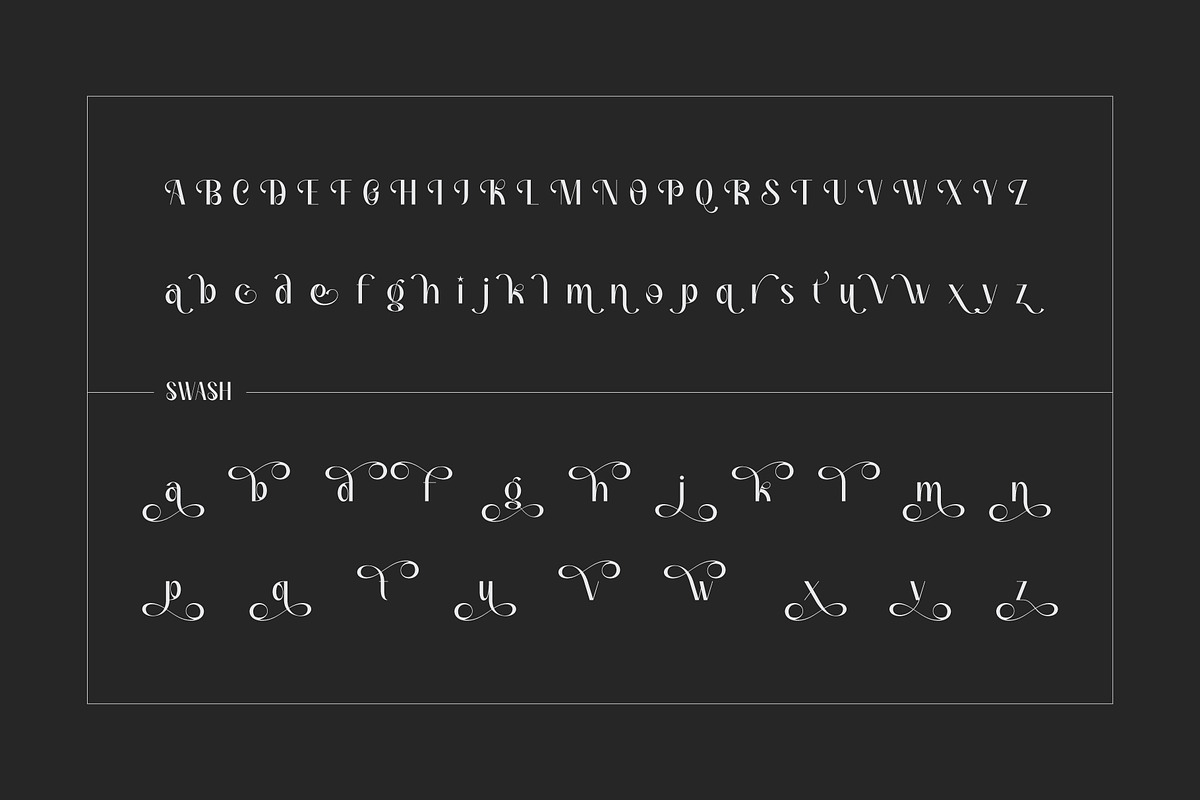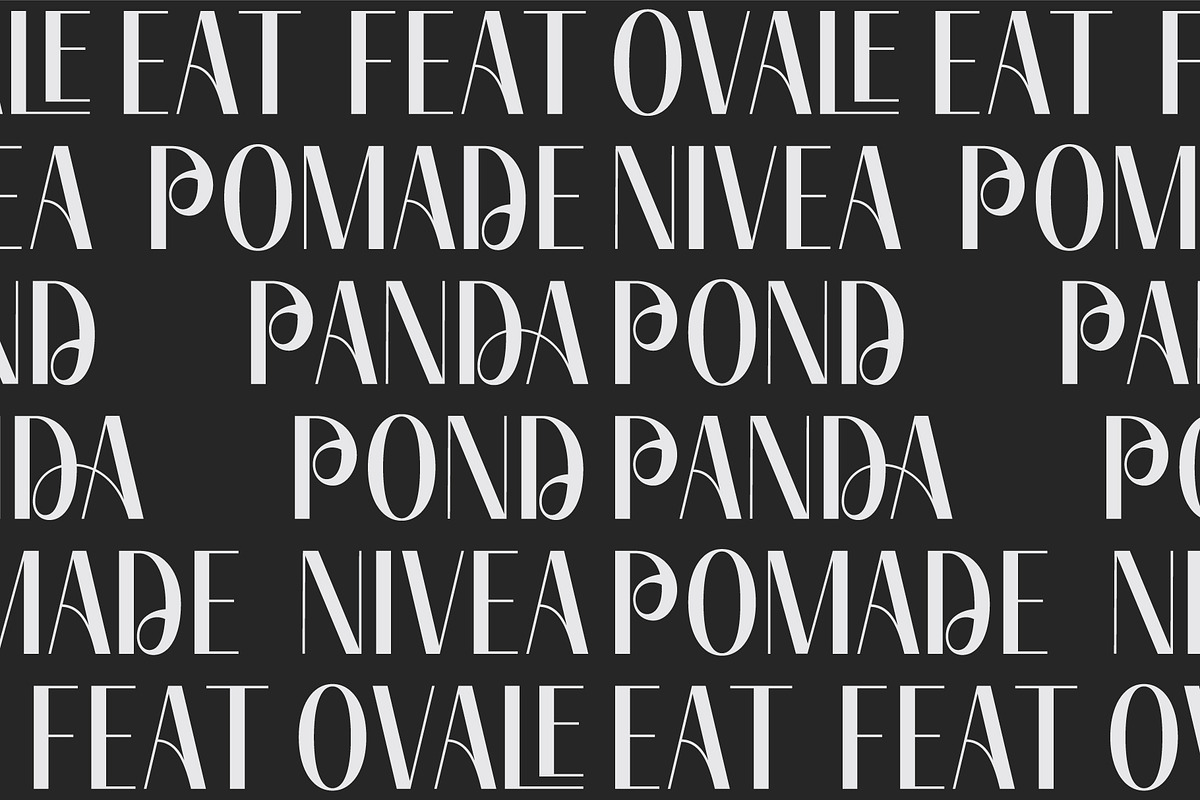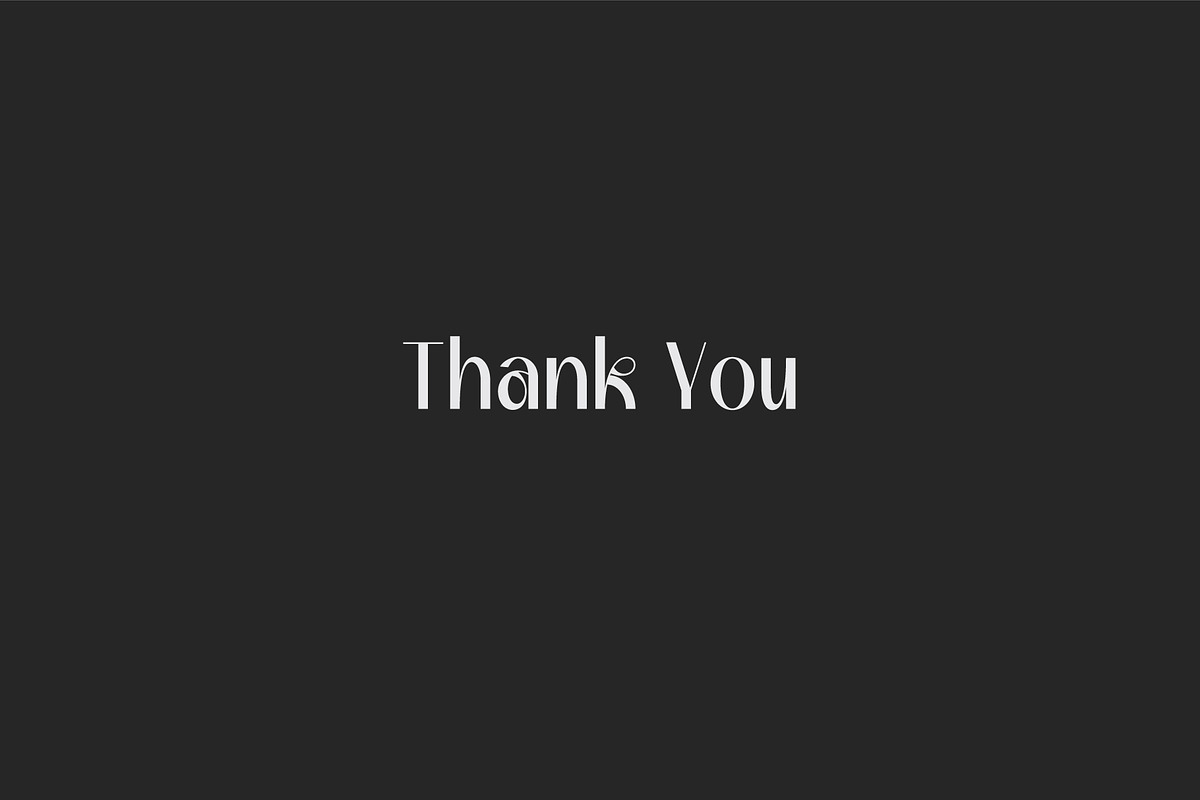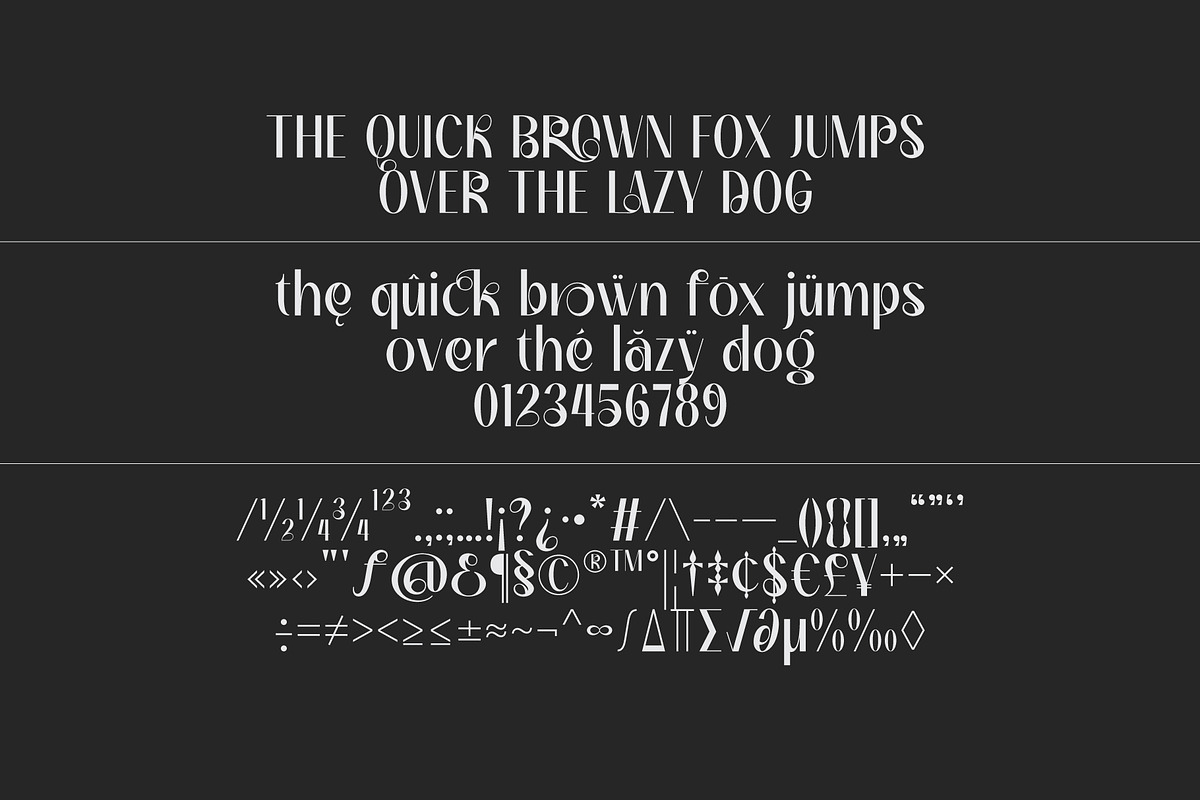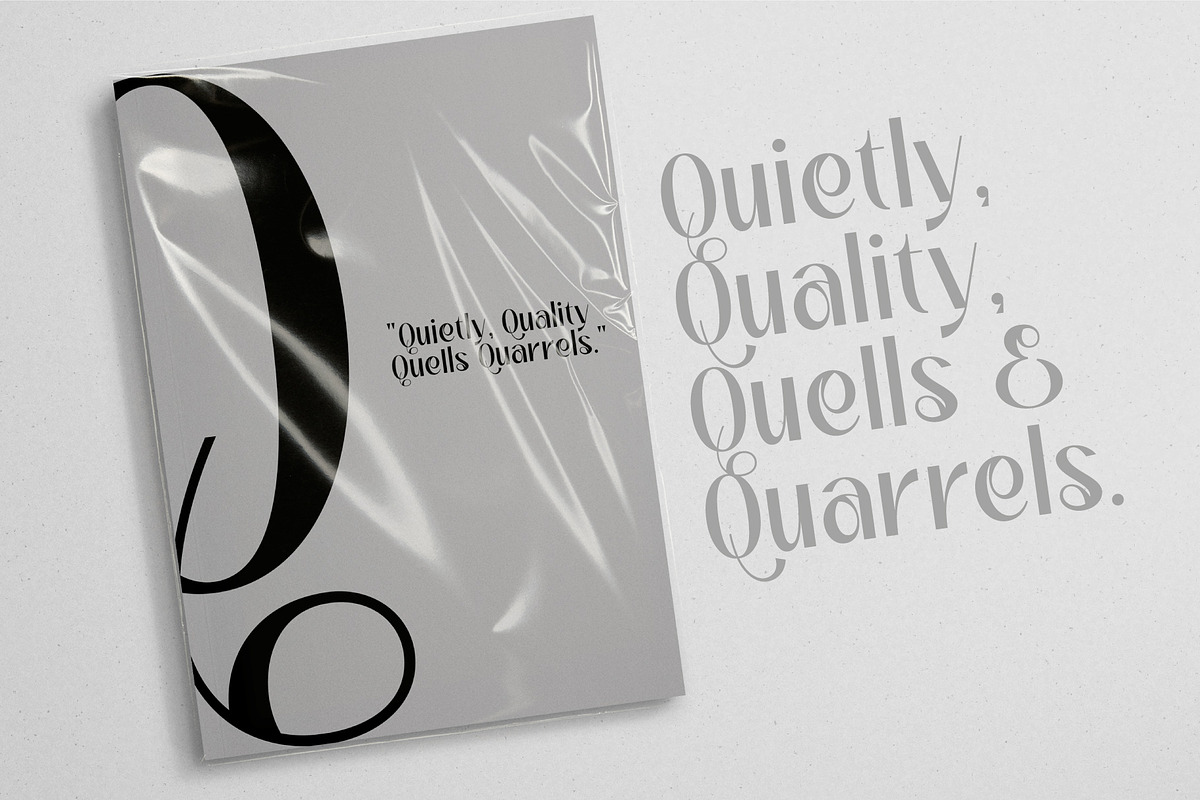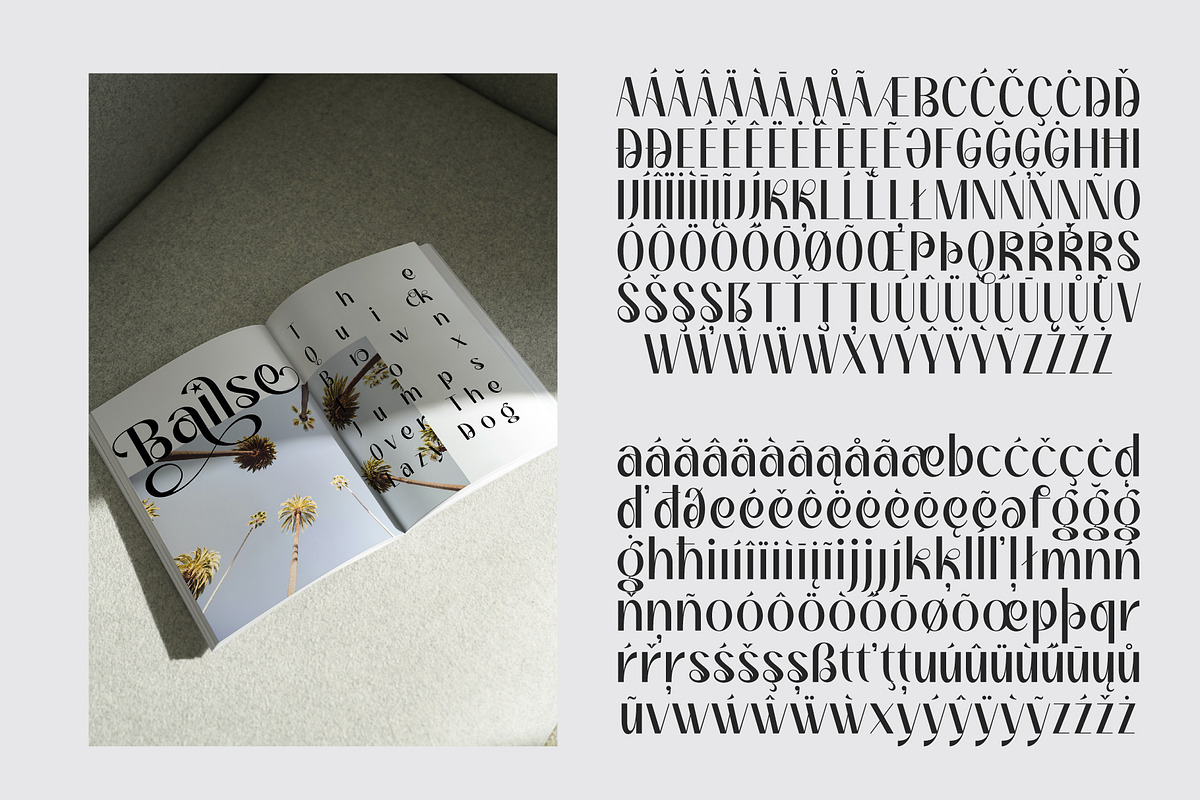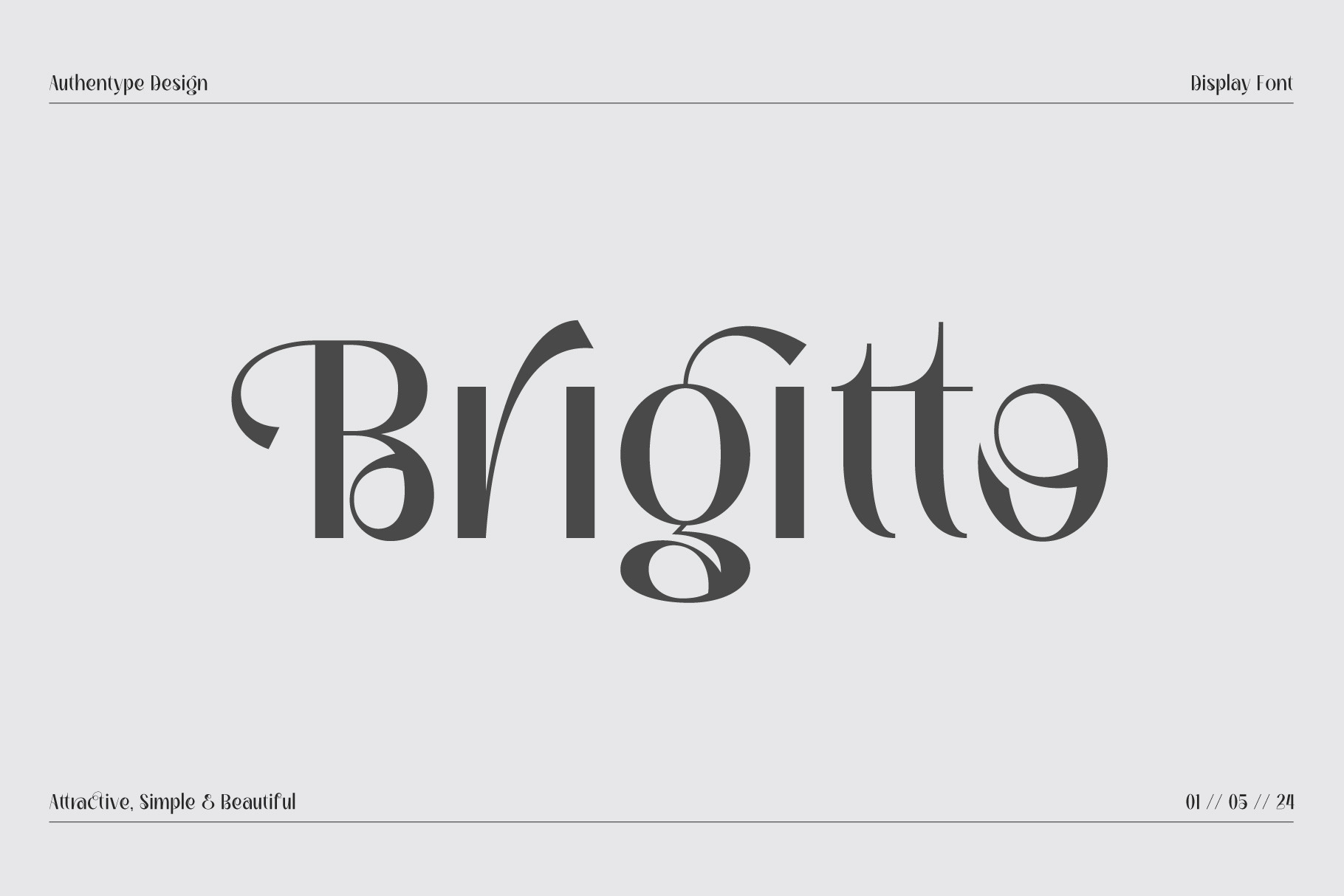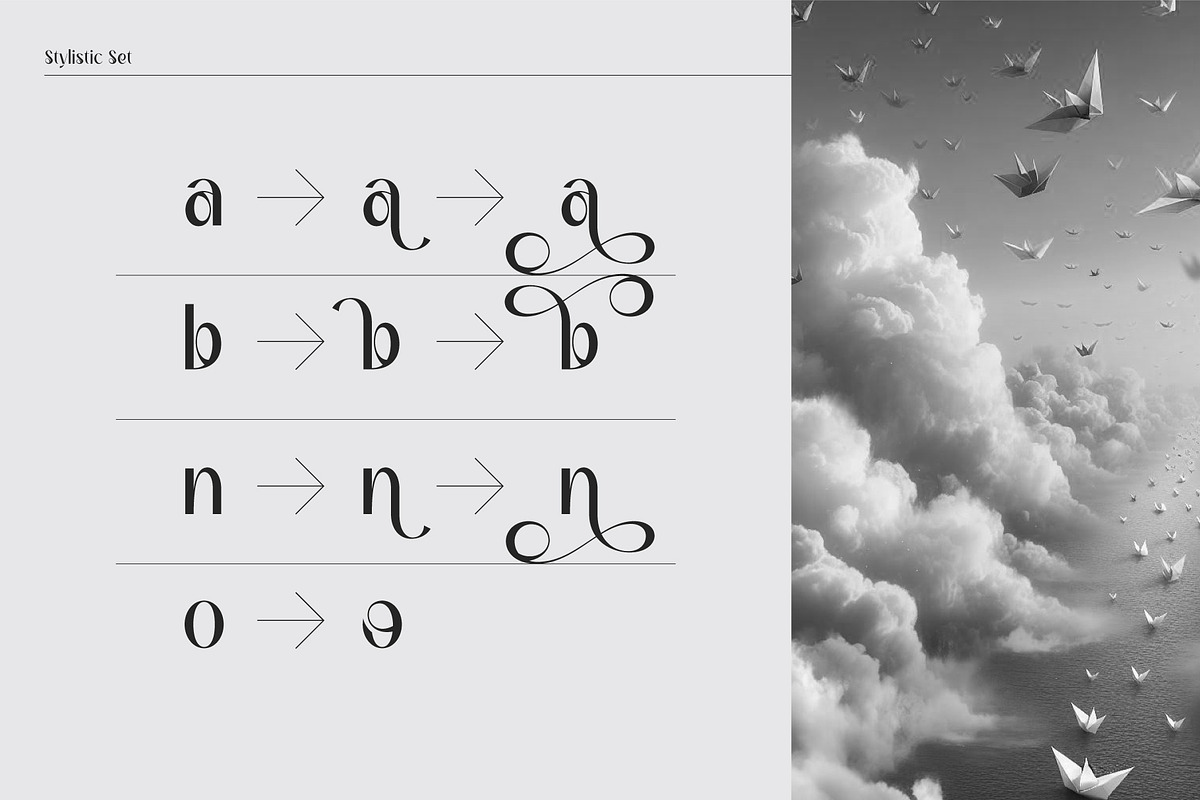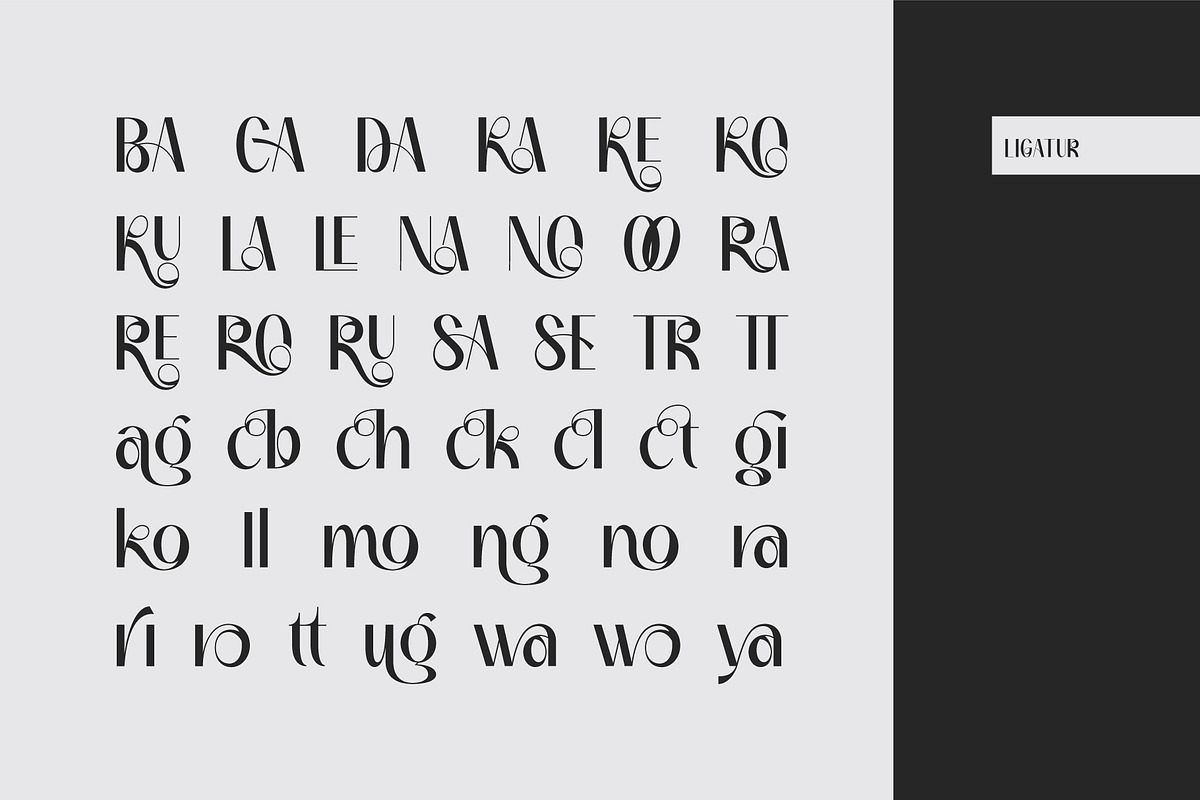
Brigitto - Charming Sans Serif Font
Brigitto is a charming sans serif font, meticulously crafted to captivate with its elegance and simplicity.
With its captivating design, Brigitto effortlessly attracts attention. Its clean lines and balanced proportions exude sophistication, making it suitable for a wide range of applications in both print and digital media.
Despite its allure, Brigitto remains refreshingly simple. Its minimalist aesthetic ensures readability and clarity, even at smaller sizes. This simplicity lends itself well to a variety of design projects, allowing content to shine without distractions.
What truly sets Brigitto apart is its exquisite attention to detail. This font boasts a variety of powerful features, including Stylistic Sets, Ligatures, Swashes, and more. These elements add a touch of elegance and flair to any text, elevating the overall aesthetic and creating a truly bespoke feel.
Whether you're designing a logo, branding material, website, or print publication, Brigitto offers the perfect blend of appeal, simplicity, and beauty to bring your vision to life.